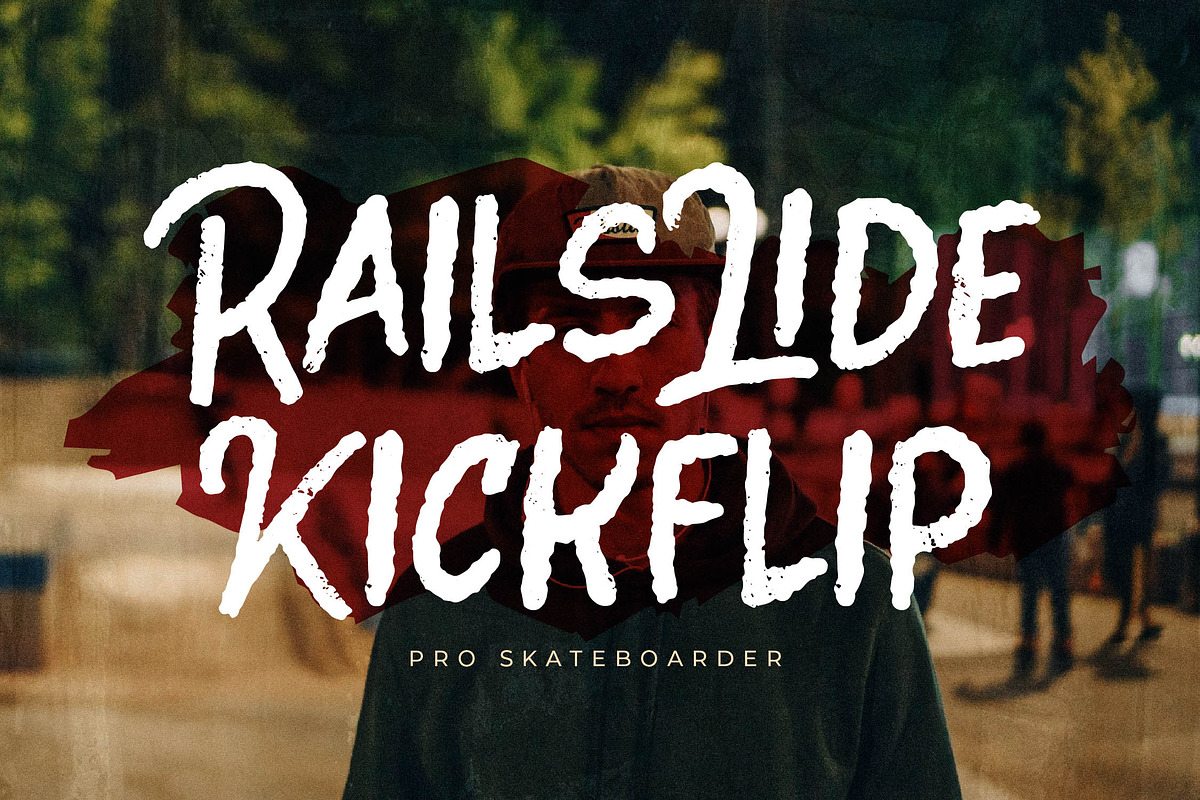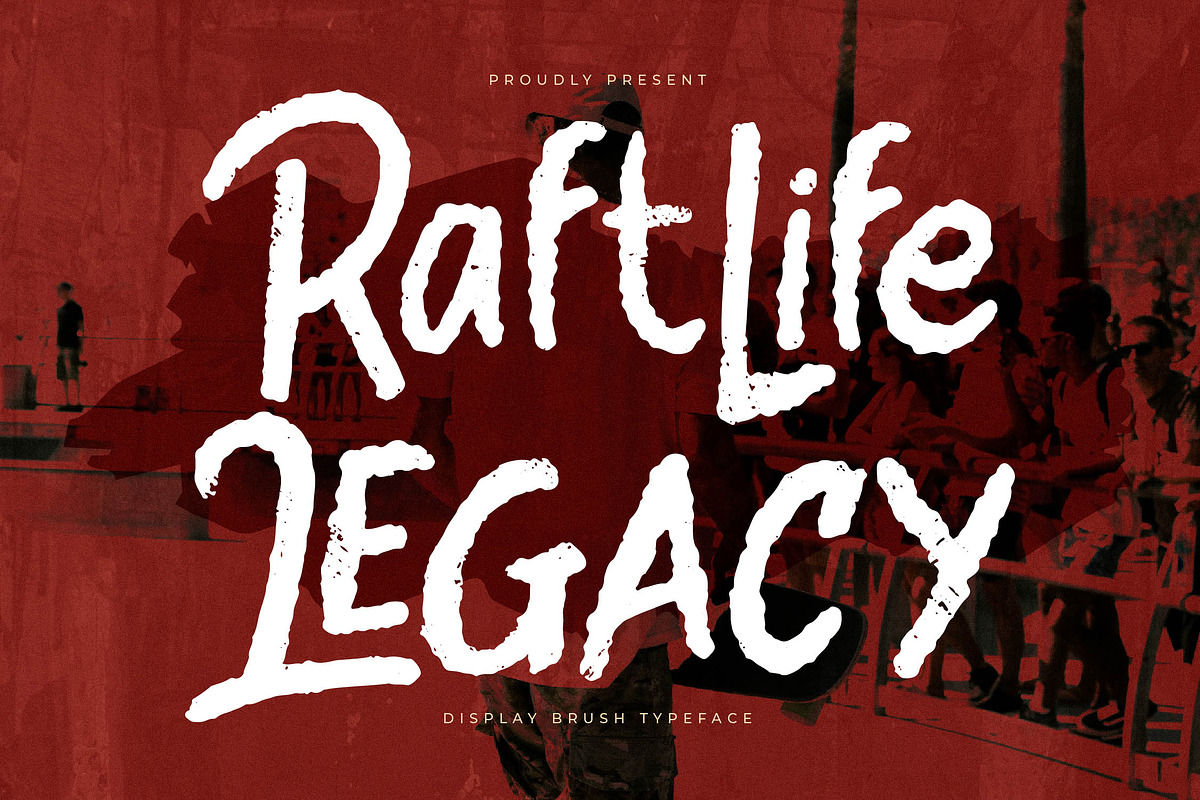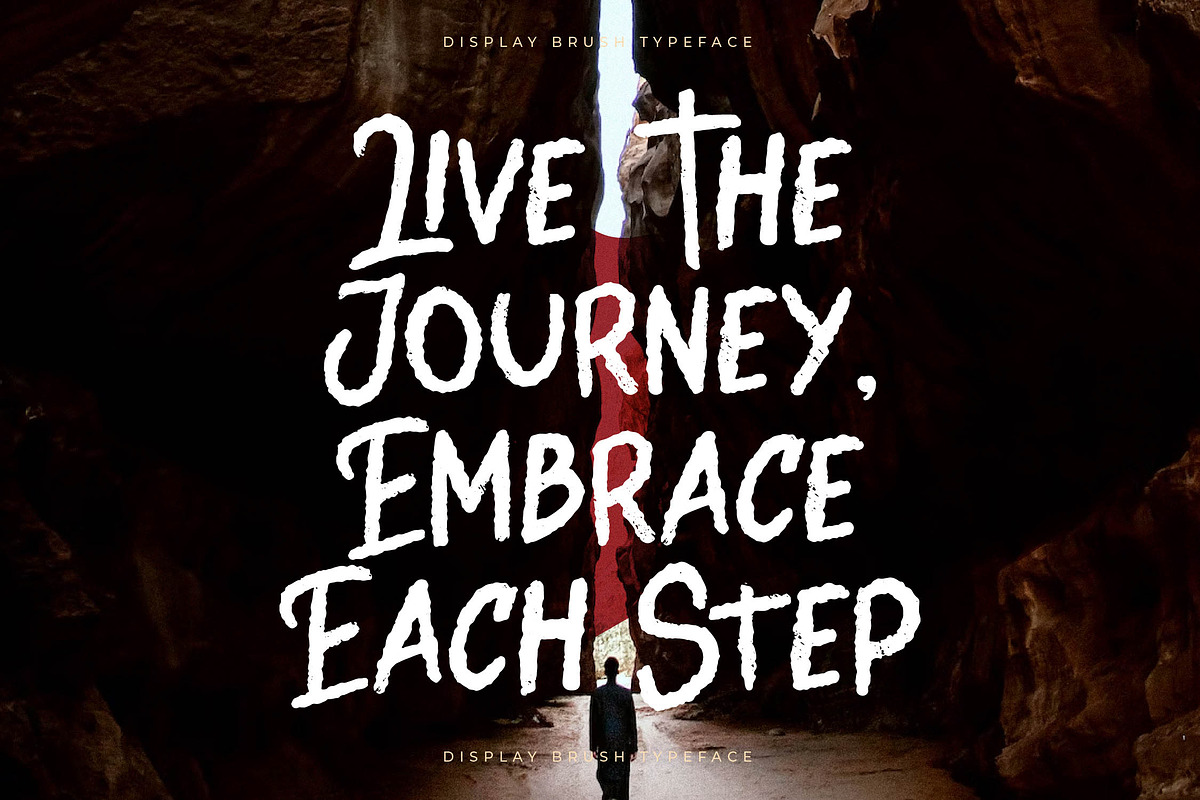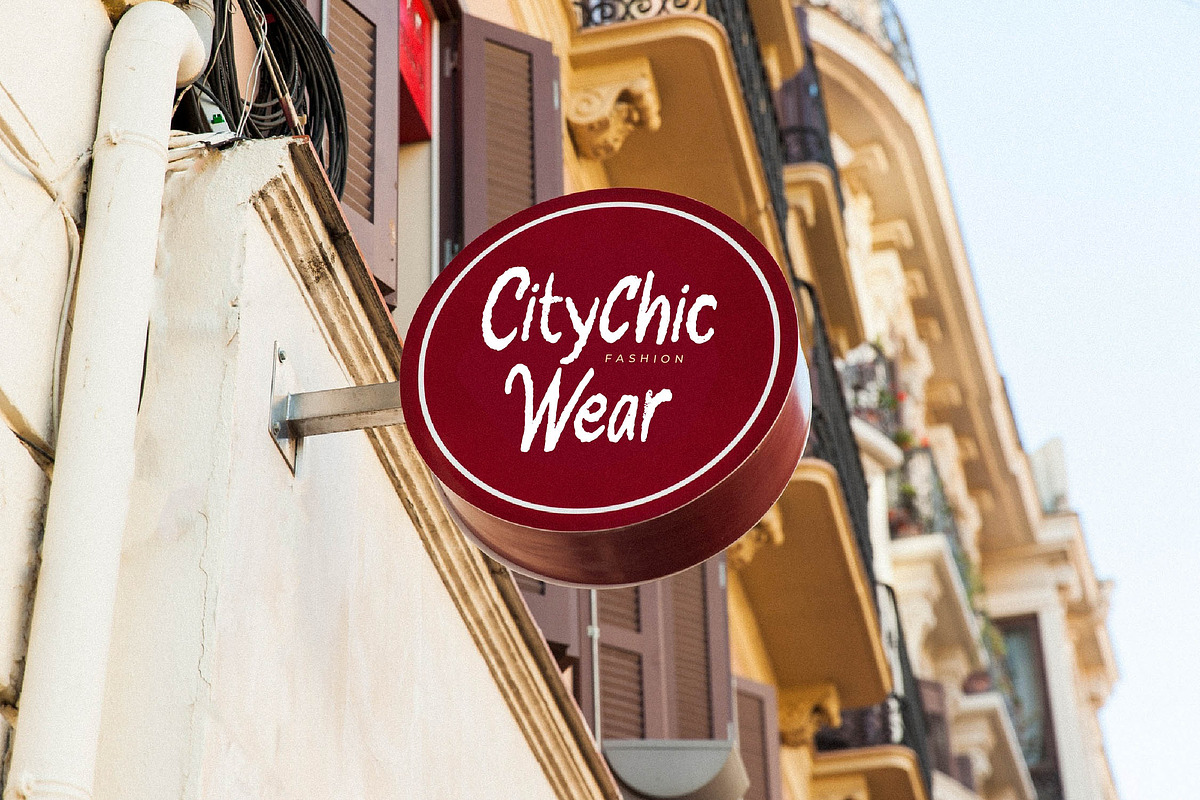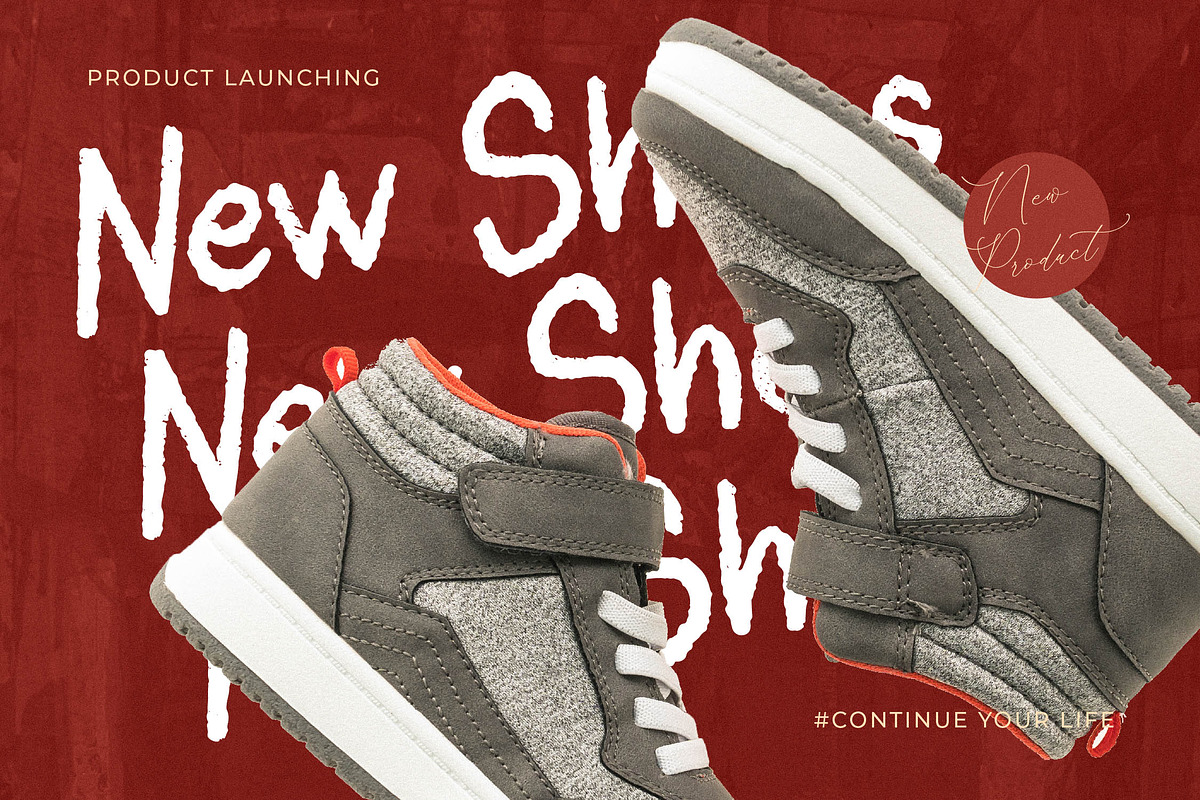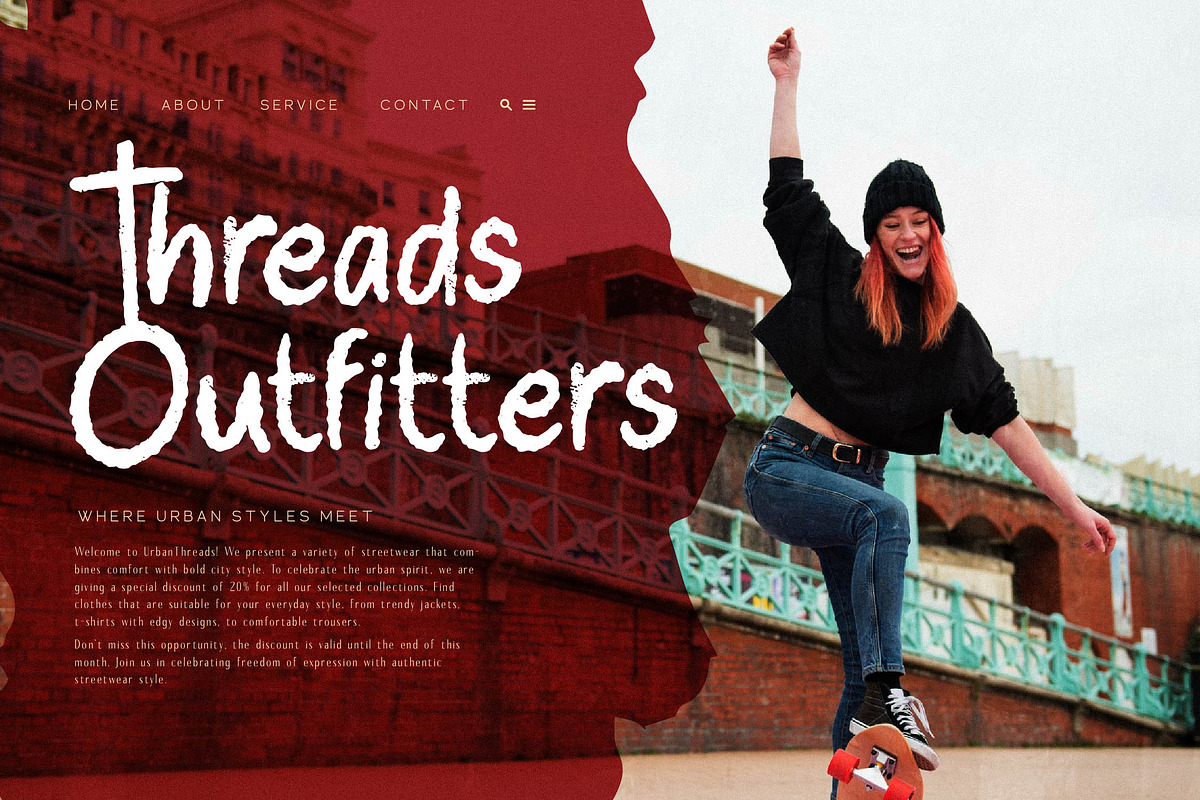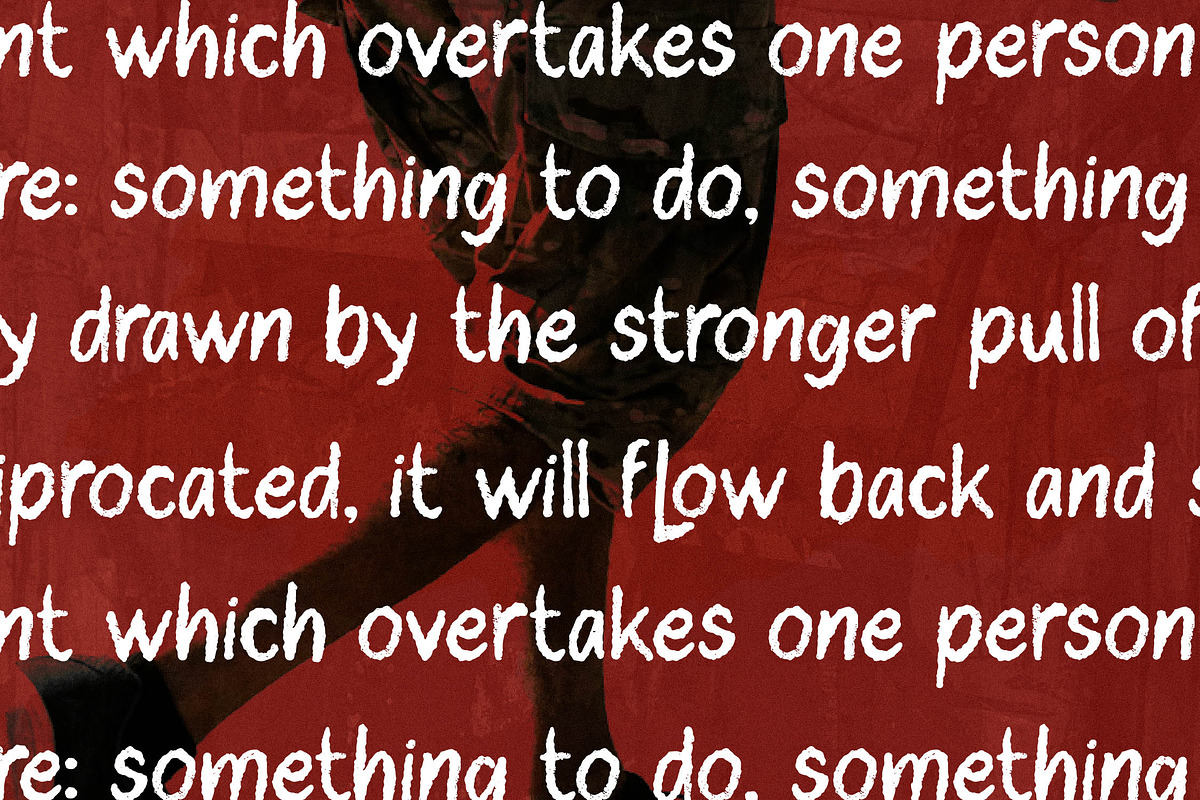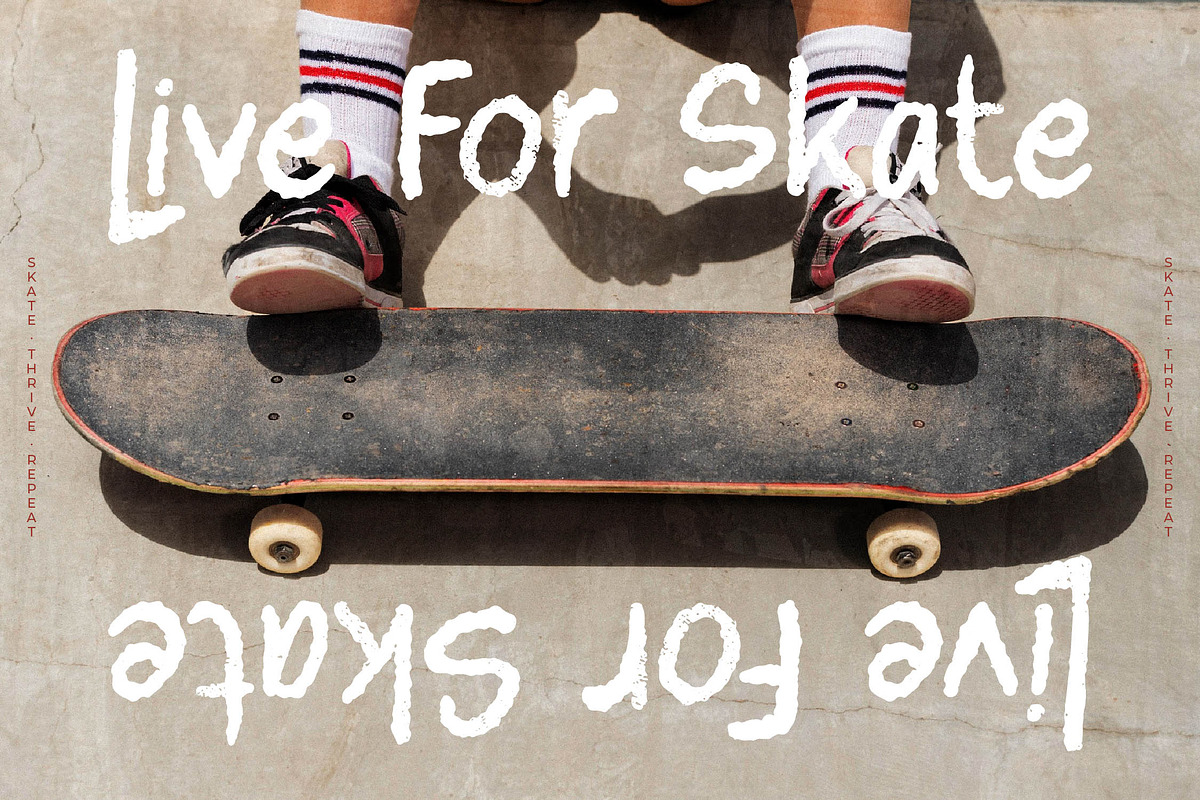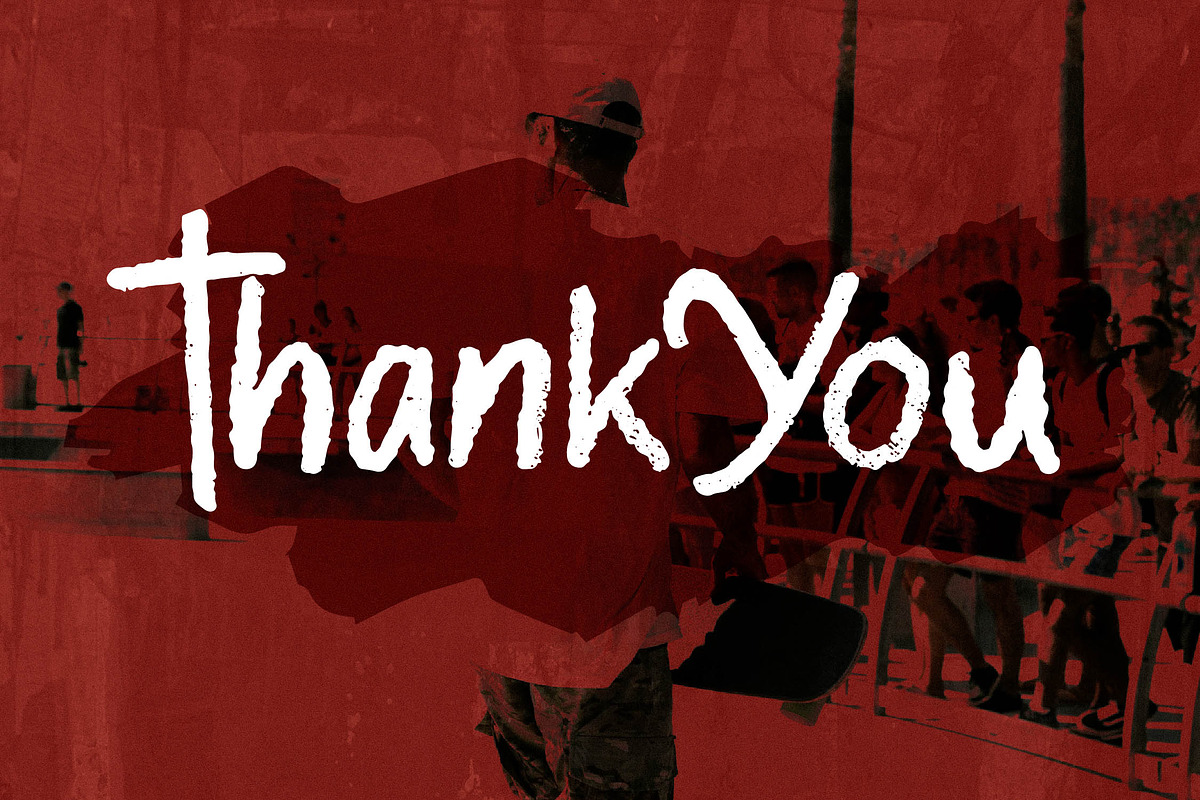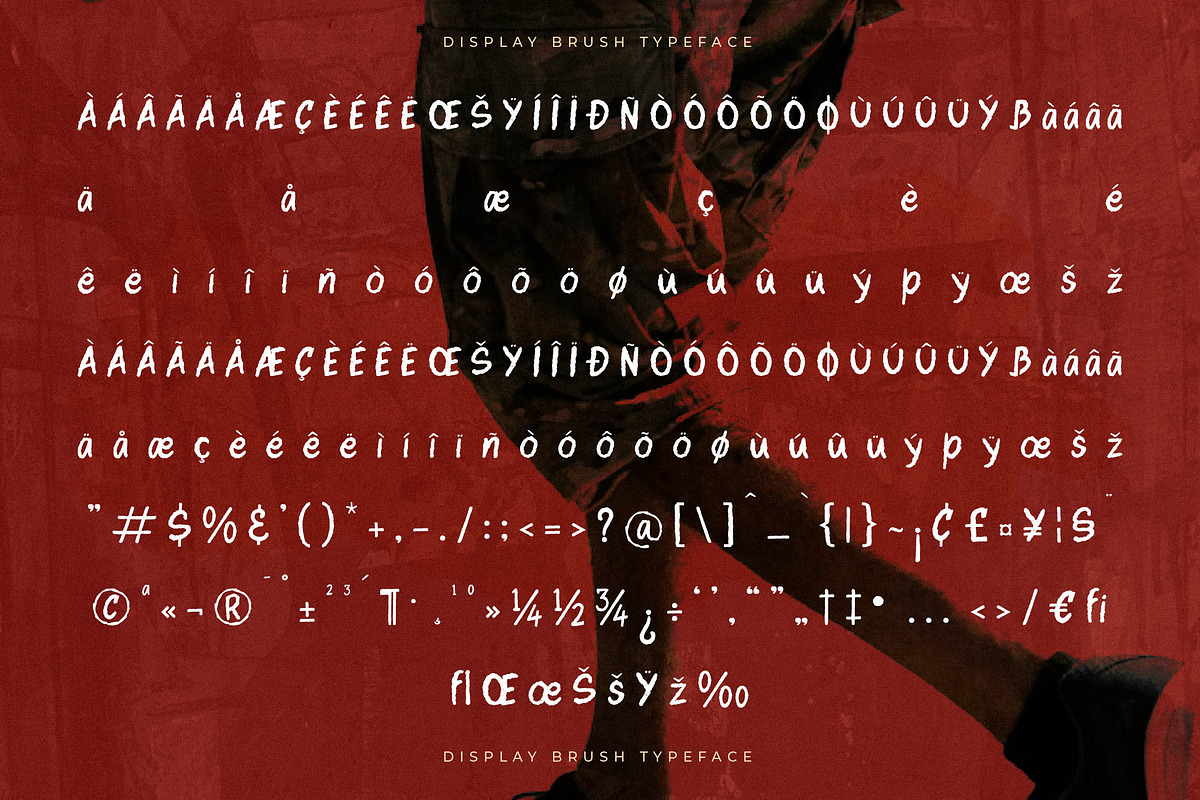
Raftlife Legacy Display Brush
Proudly present Raftlife Legacy Typeface , created by Storytype, A serif modern and classic typeface that has own unique style & modern look. This typeface is perfect for an elegant & luxury logo, book or movie title design, fashion brand, magazine, clothes, lettering, quotes, and so much more.